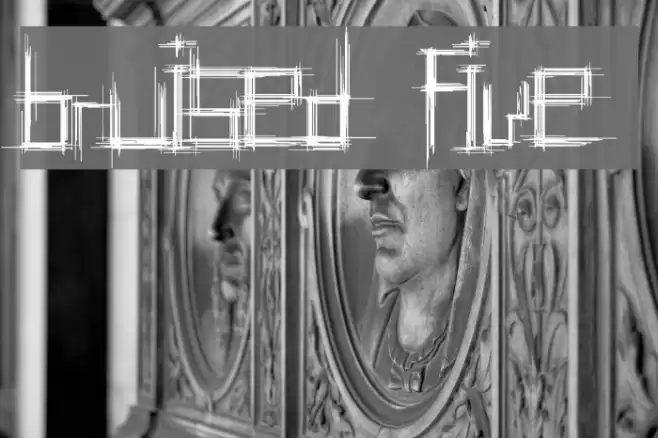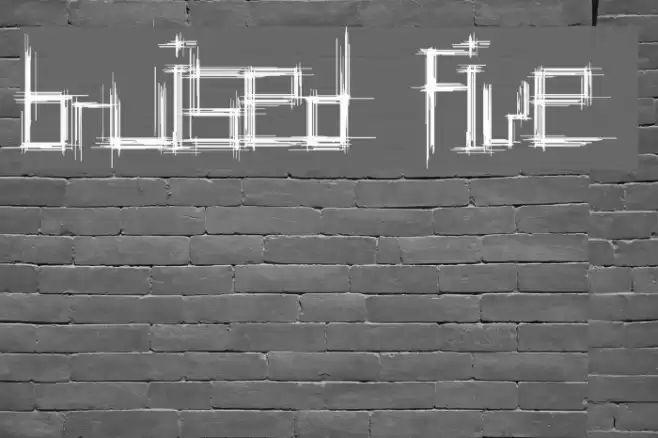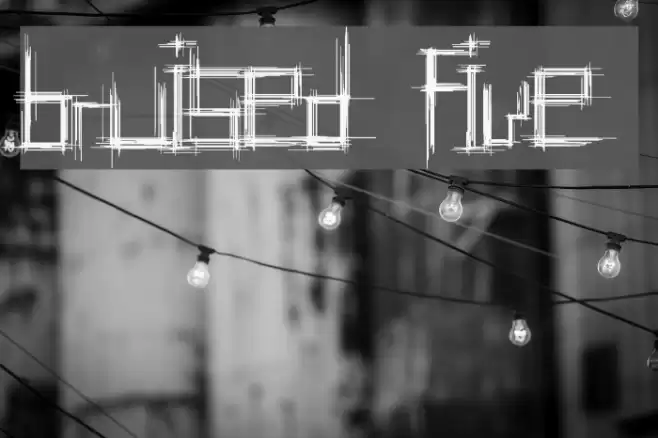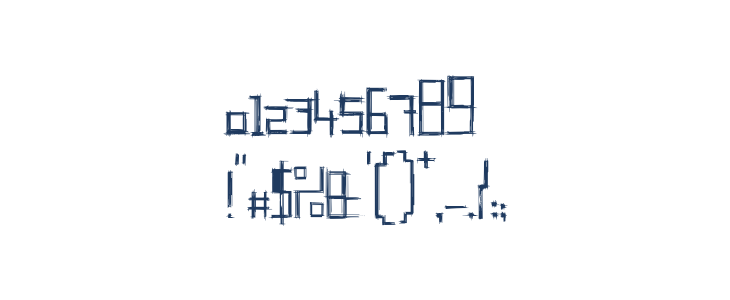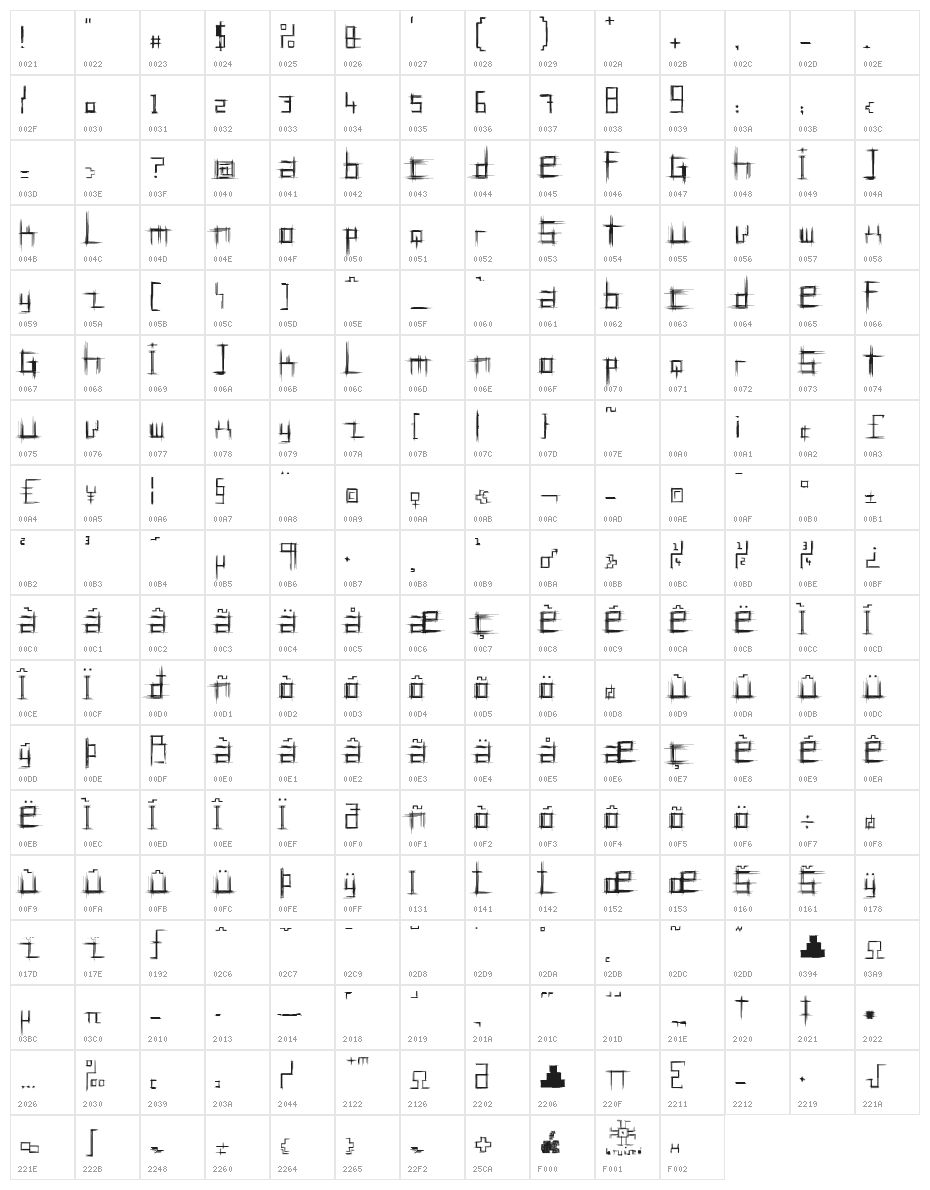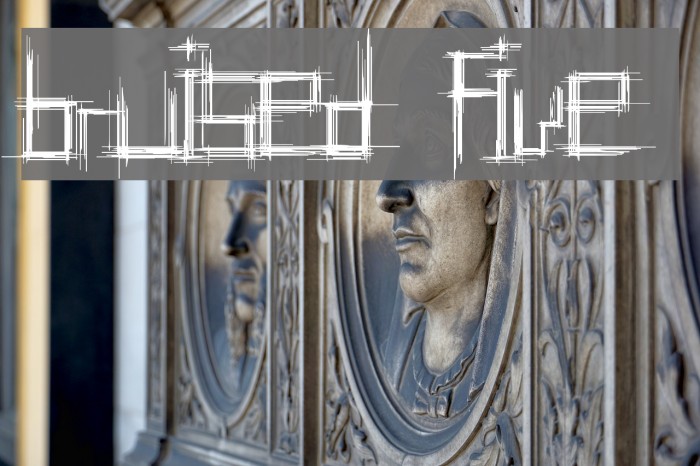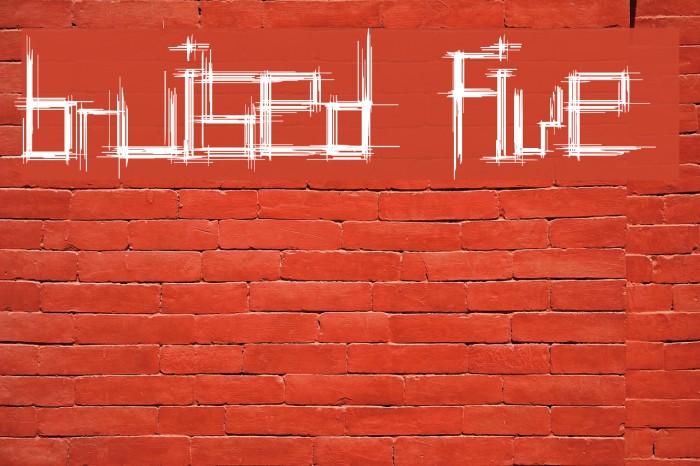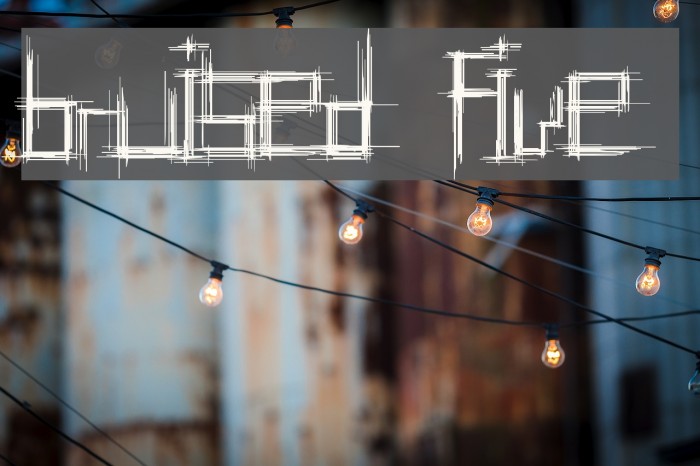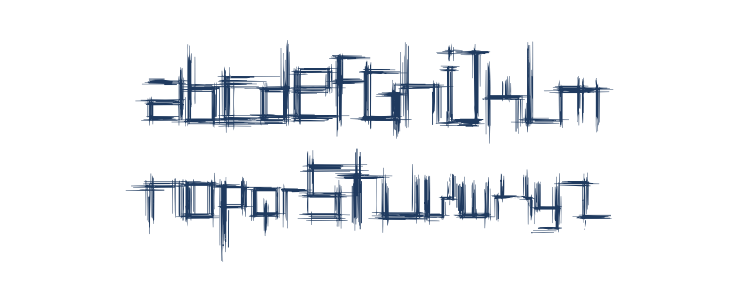
Bruised Five Font
Bruised Five Description
This font exhibits a highly distressed and grungy aesthetic, characterized by its fragmented and sketch-like appearance. Each character appears as if it has been drawn with multiple overlapping strokes, creating a chaotic yet intriguing texture. The lines are uneven and jagged, giving the font a raw and edgy feel. Despite its roughness, the characters are still legible, maintaining a balance between artistic expression and readability. This font is ideal for projects that require a bold statement or an unconventional look, such as album covers, posters, or urban-themed designs.
A distressed, sketch-like font with a chaotic and edgy appearance from Handwritten fonts.
- Proposed Projects: Ideal for album covers, posters, urban-themed designs, and any project needing a bold, unconventional look.
- Overall Style: Grunge, Artistic